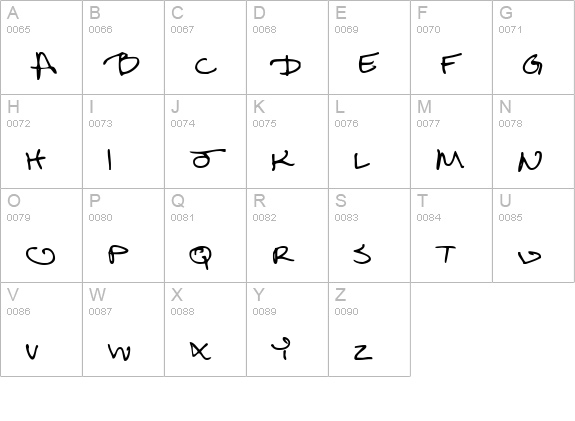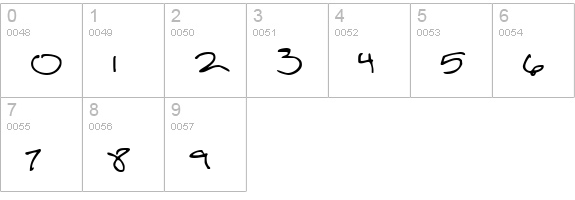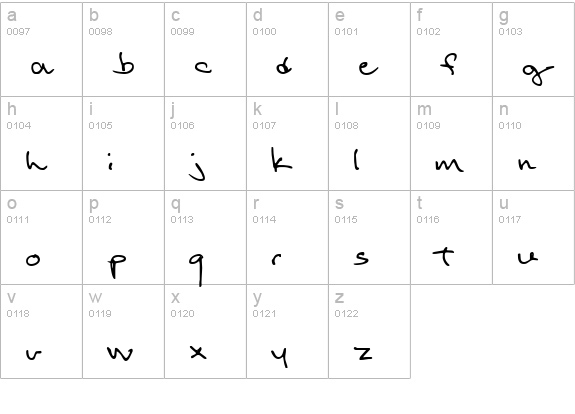
Return of RelayScript Font Details
Introducing the magnificent Return of RelayScript font, a true gem for typography enthusiasts. This font is the embodiment of elegance, sophistication, and versatility. Its beautifully crafted letterforms exude a timeless charm that will effortlessly elevate any design project. Return of RelayScript font is a revival of the classic script style, infused with a delightful contemporary twist. Its graceful strokes and intricate details are a testament to the meticulous craftsmanship behind its creation. Whether you're designing wedding invitations, branding materials, or editorial layouts, this font will add a touch of refinement and finesse to your work. What's even more exciting is that Return of RelayScript font is available for free! Yes, you read that right. This extraordinary font can be freely downloaded at FontsMarket.com, making it accessible to all designers, regardless of their budget. Now, you can enjoy the beauty and versatility of Return of RelayScript font without any financial constraints. With its wide range of alternate characters and ligatures, Return of RelayScript font offers endless possibilities for customization. Whether you prefer a more traditional or a contemporary look, this font has got you covered. Its versatility allows you to create unique and personalized designs that capture the essence of your vision. In addition to its aesthetic appeal, Return of RelayScript font also boasts exceptional legibility, ensuring that your message is effortlessly conveyed to your audience. Its well-balanced letterforms and generous spacing guarantee a seamless reading experience, whether in print or on digital platforms. So why wait? Experience the sheer beauty and versatility of Return of RelayScript font today. Head over to FontsMarket.com and download it for free. Unleash your creativity and let this font elevate your designs to new heights. Don't miss out on this incredible opportunity to enhance your projects with a font that combines timeless elegance with modern flair. Download Return of RelayScript font now and let your creativity soar.